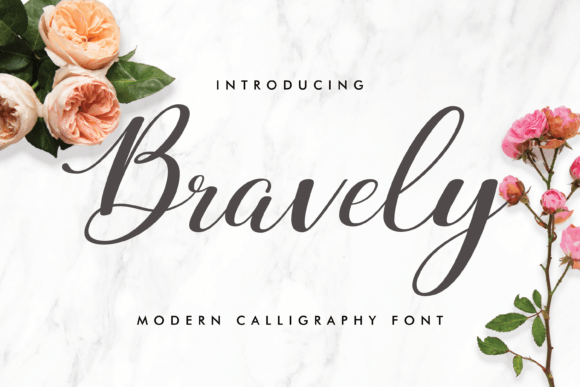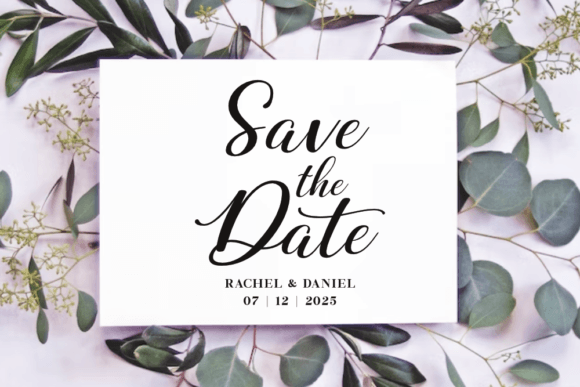
About Bravely Font
Bravely is a graceful, modern calligraphic font. With its beautiful rhythm, this font will help you create gorgeous and classy compositions. Use it for branding projects, invitations, web graphics, cards, and many more!